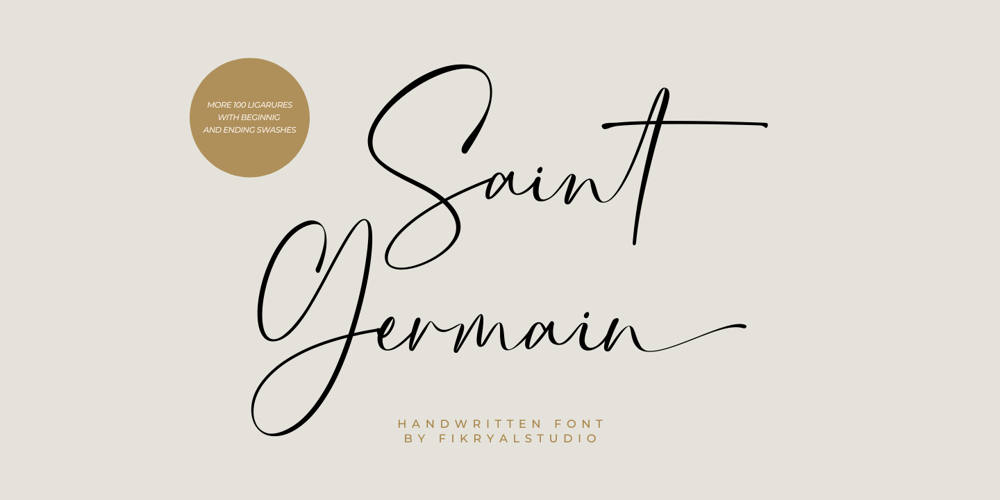
Saint Germain Font Family was designed by Muhammad Fikry and published by Fikryal. Saint Germain contains 1 styles and family package options. Saint Germain is a natural signature font perfect for crafting, branding, invitation, stationery, wedding designs, social media posts, advertisements, product packaging, product designs, label, photography, watermark, special events, or anything.Saint Germain comes with a full set of uppercase and lowercase letters, swash alternates, ligatures, multilingual symbols, numerals, and punctuation.